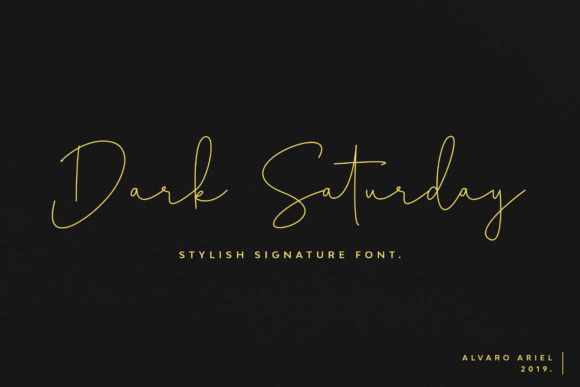
Unleash your creativity with the Dark Saturday Font, a script font that exudes both elegance and intrigue. Its captivating beauty stems from its distinct style, inspired by the essence of a mysterious Saturday night. Dark Saturday is not just a font; it's an artistic expression that will leave an indelible mark on your designs.
With its bold strokes and enchanting swirls, Dark Saturday commands attention and conveys a sense of sophistication. It's a font that speaks volumes without uttering a single word. Its enchanting curves evoke a sense of curiosity and allure, inviting your audience to delve deeper into your creative realm.
Step into the world of Dark Saturday and let your imagination run free. Whether you're crafting logos, invitations, posters, or social media graphics, this font will elevate your designs to new heights. Its versatility knows no bounds, making it the perfect choice for a wide range of projects.
Embrace the power of Dark Saturday and watch as your creative vision comes to life. Its unique style will leave a lasting impression on your audience, setting your work apart from the ordinary. Experience the magic of Dark Saturday today and embark on a typographic journey like never before.